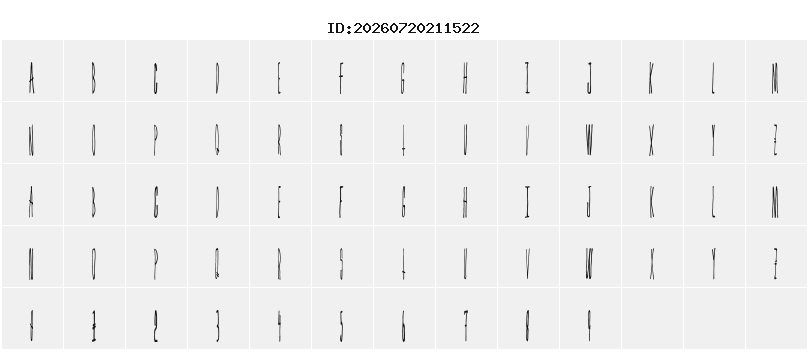
ForestFire Preview
About ForestFire.ttf
ForestFire.ttf is a modern, elegant sans-serif font designed for ultimate readability and visual harmony. Perfect for branding, headlines, web design, and print materials.